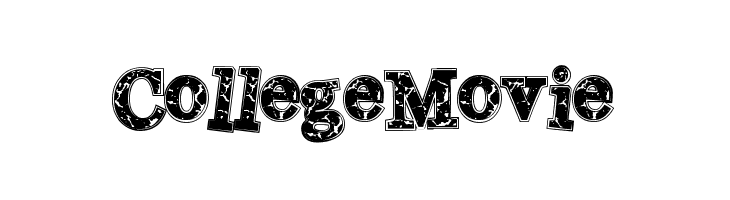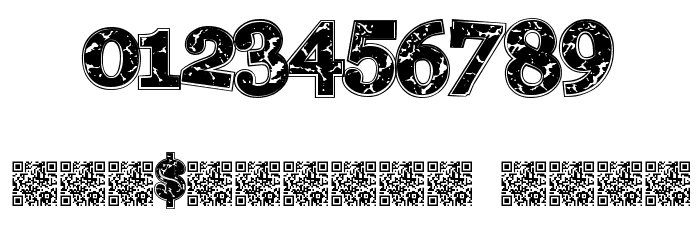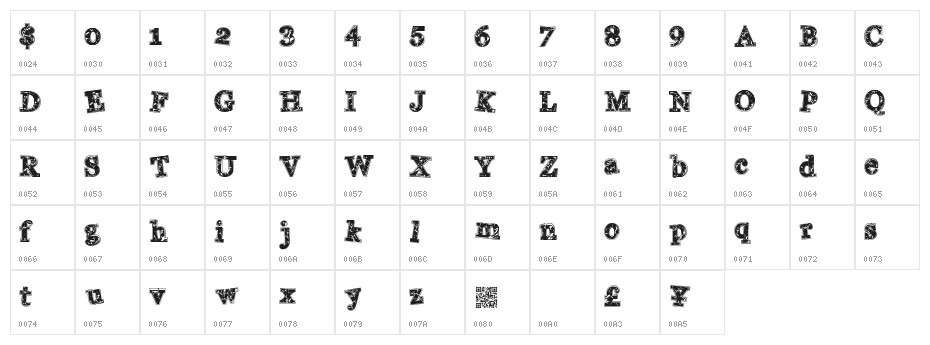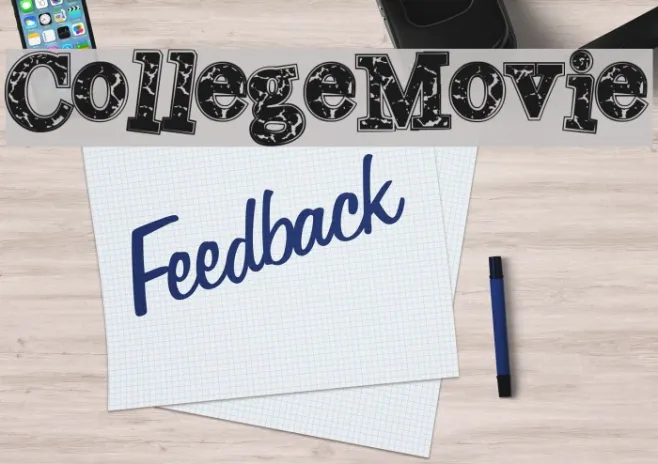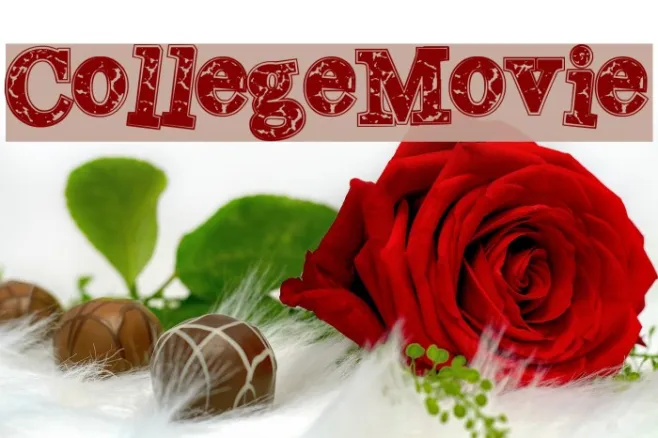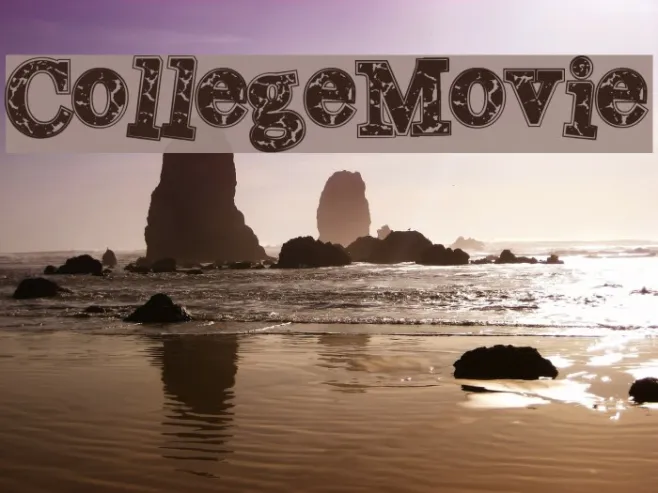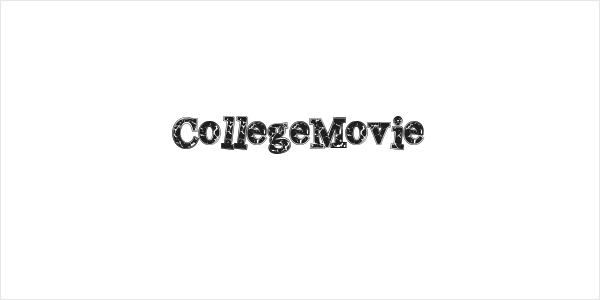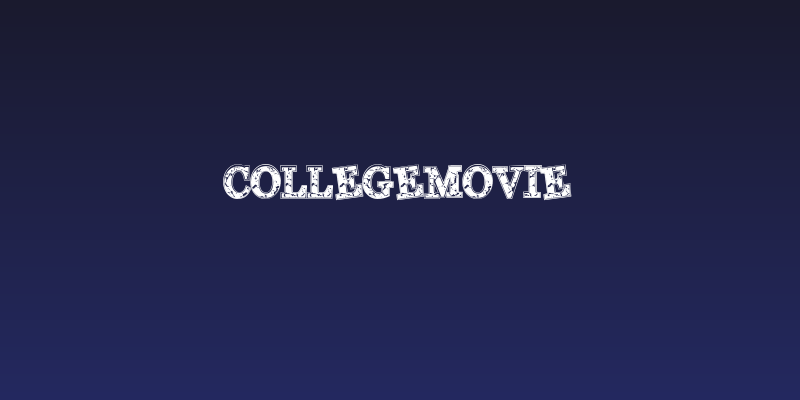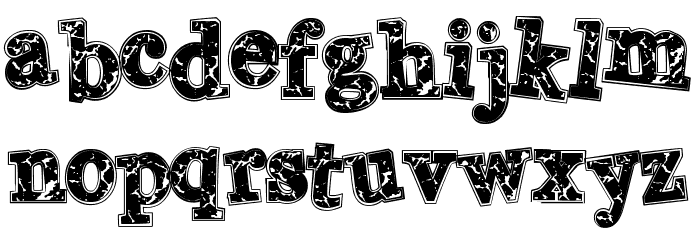
CollegeMovie Font
CollegeMovie Description
This font features a bold, decorative style with a distressed, textured appearance. Each character is outlined with a thick black border, filled with a pattern that gives a vintage, worn look. The uppercase and lowercase letters maintain a consistent style, with rounded edges and a playful, collegiate feel. The numbers and special characters follow the same design, ensuring uniformity across all elements. This font's unique, eye-catching design makes it ideal for projects that require a strong visual impact.